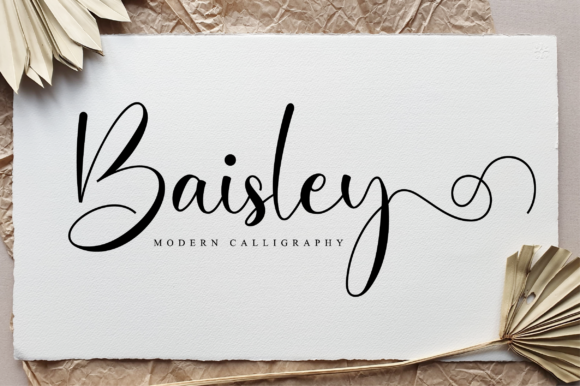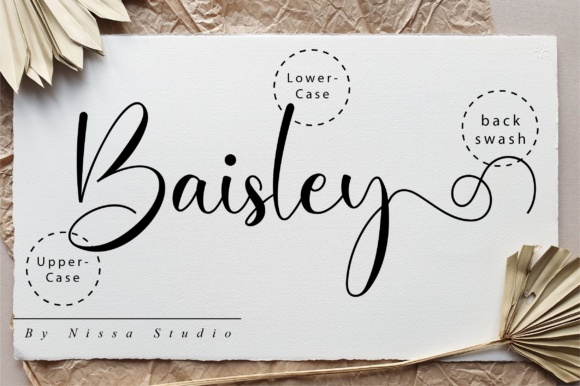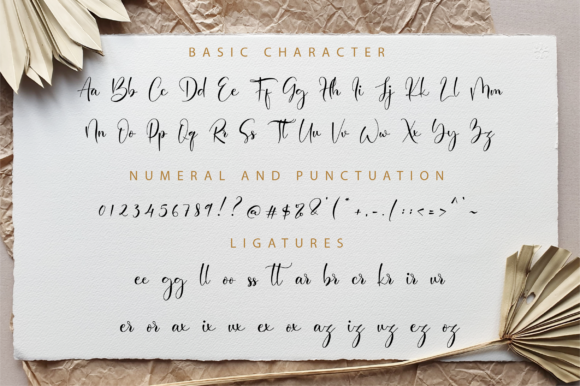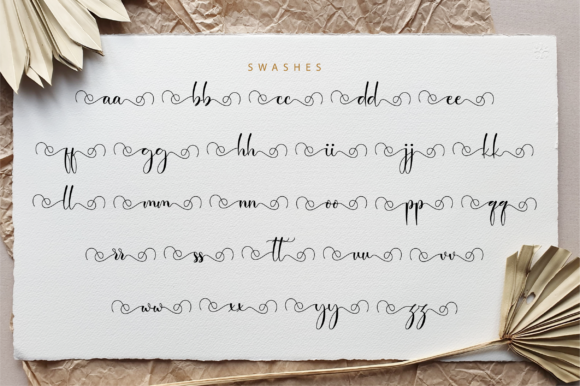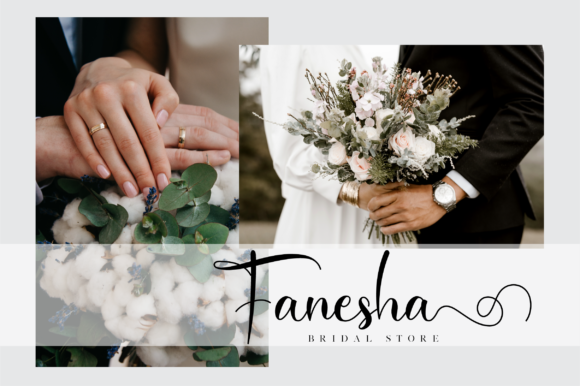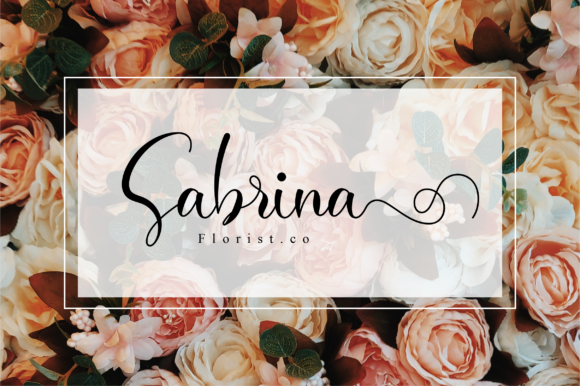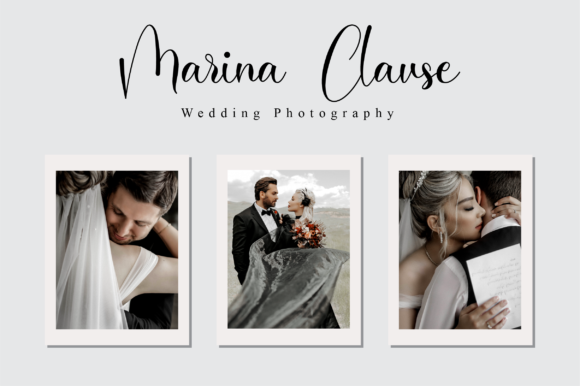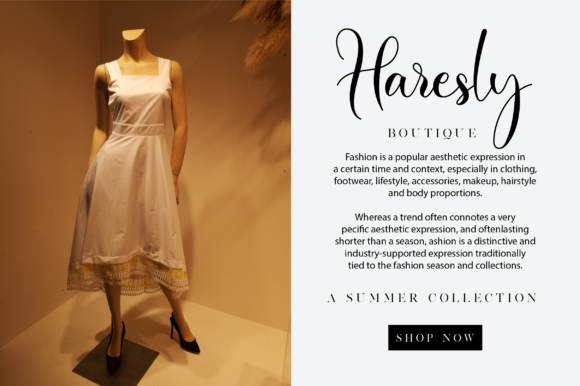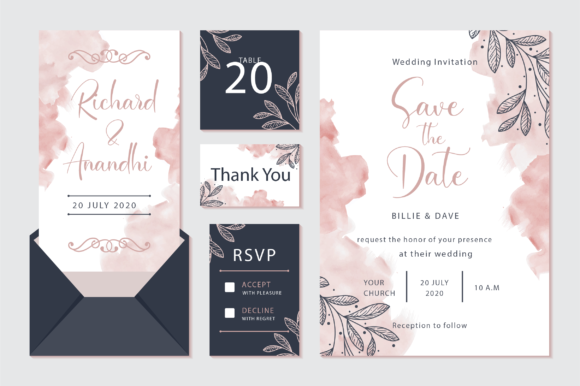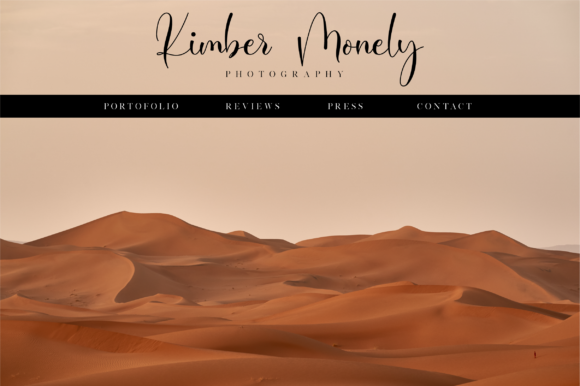
Baisley Font
About Baisley Font
Baisley is a beautiful script font. It has a classy, elegant, and modern look. This font is the perfect fit for all of your logos, branding, social media, and crafty DIY projects.